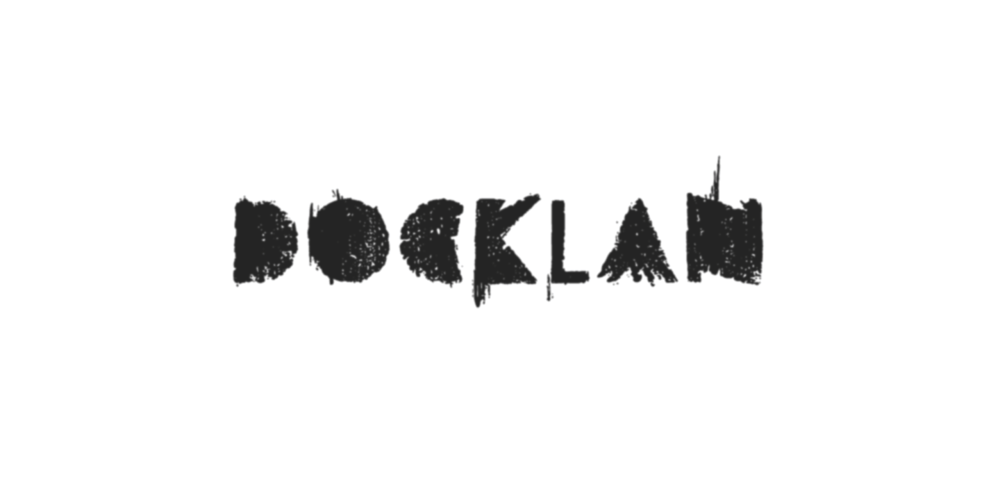
Docklan
Docklan font
Docklan Font Family was designed by Andreas Brunelius and published by Gustav & Brun. Docklan contains 1 styles and family package options. The display font Docklan arose from experiments of candle-grease and black ink. Book covers, music festivals, wedding invitations or just an essay in school – Docklan will allow you to make a statement in any setting! The lowercases are miniatures of the upper-ones and it comes with a set of basic English/Latin letters and some west European diacritics.